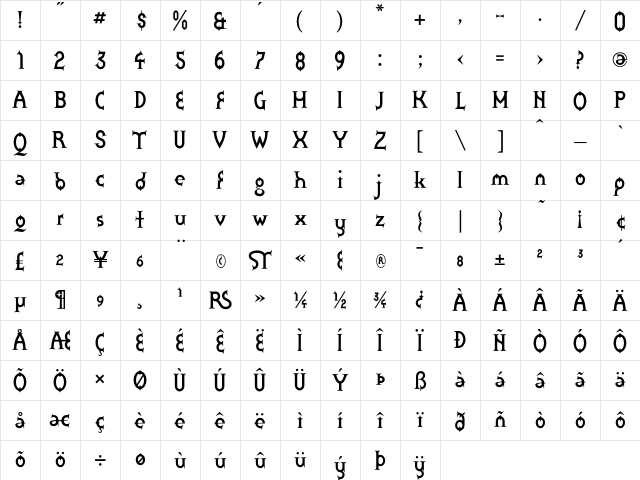
Zoroaster Bold Free Font
Zoroaster Bold
Design Context for Zoroaster
Zoroaster is a composed and adaptable typeface that performs quietly and consistently across a wide range of design contexts. Its bold stroke weight gives it real presence on the page.